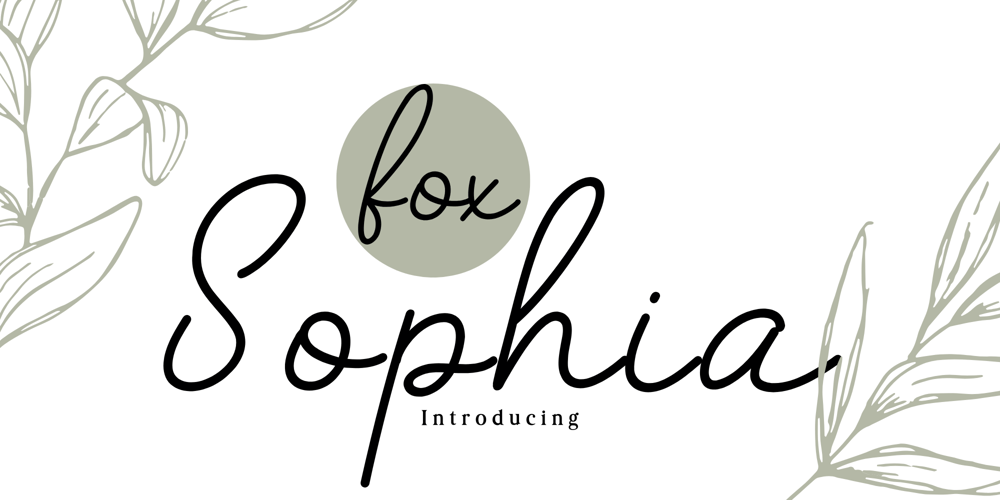
Fox Sophia Font Family was designed by Rattana Rattanawan and published by Fox7. Fox Sophia contains 1 styles and family package options. Fox Sophia is a delicate and stylish script font with a smooth, flowing design that adds a personal and elegant touch to any project. Its cursive style makes it ideal for creating a warm, inviting feel in branding, invitations, logos, and social media graphics. With its graceful lines and refined look, Fox Sophia works beautifully as an accent font, adding a sense of sophistication and creativity to any design.